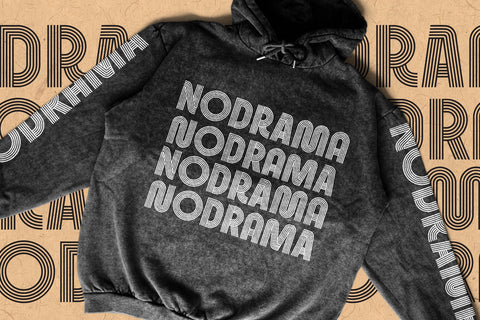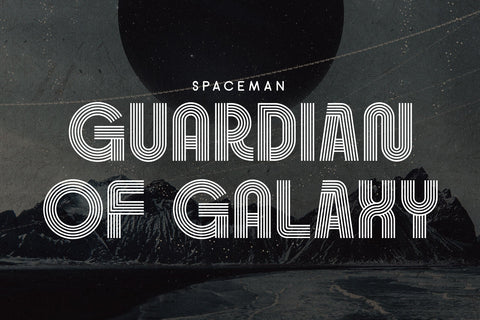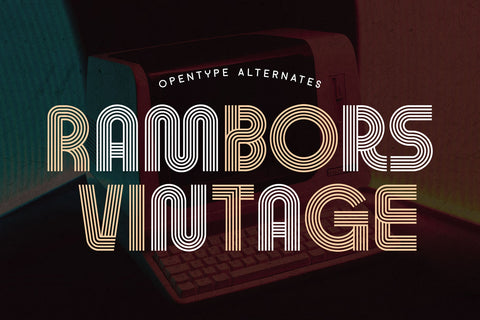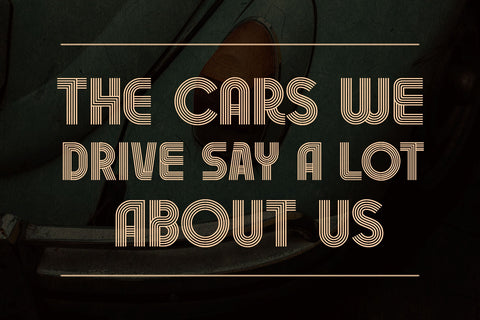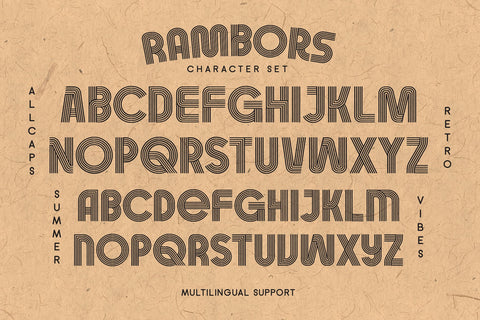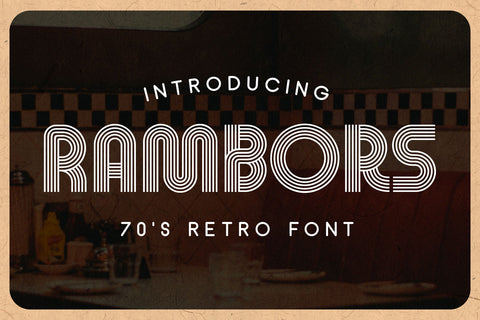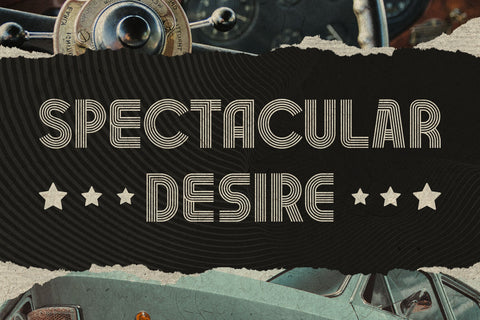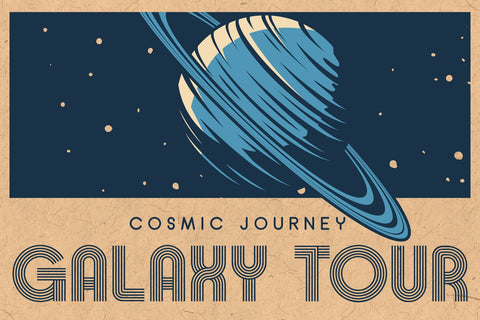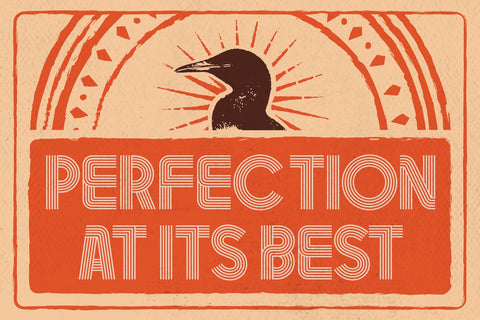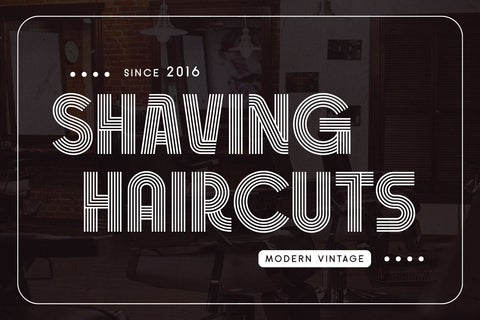
Rambors - Retro Font
Introducing Rambors, a multiline display font inspired by the 70s design which visualizes a futuristic touch and fun graphic. A very nostalgic typeface, perfect for your modern-futuristic design and contemporary style.
Rambors is looks very catchy on headlines in your poster, flyer, motion graphic, and sticker. This font is an all-caps font with different uppercase and lowercase, it gives you a lot of possibilities to explore many alternatives of design. Also completed with alternates characters.